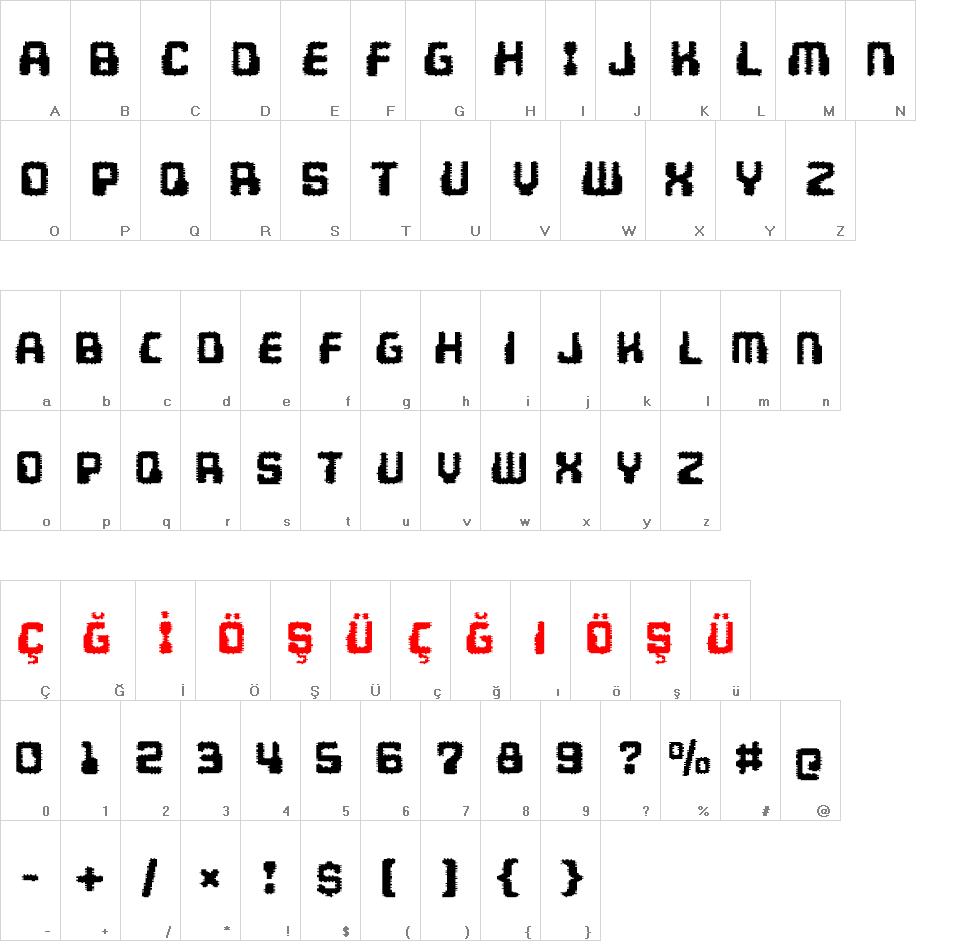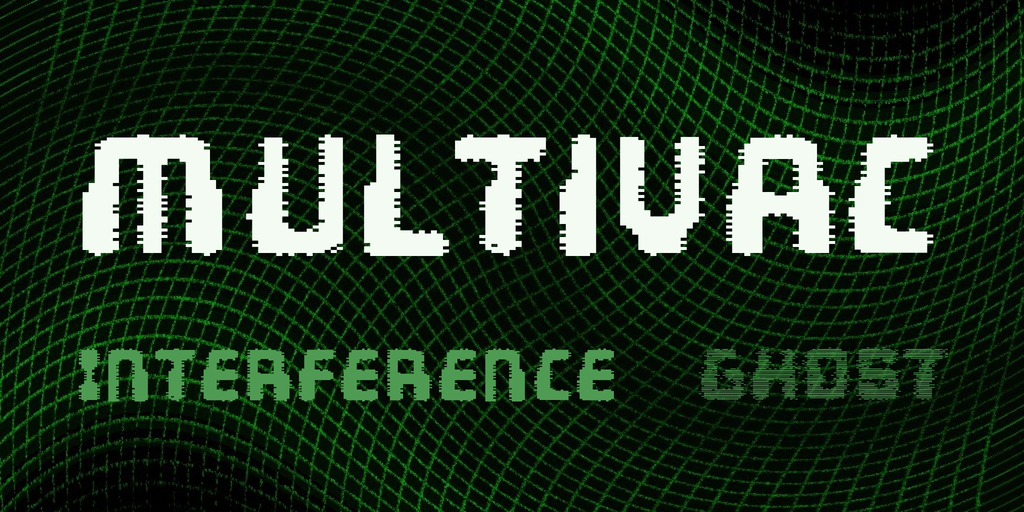
Multivac font
A parallel universe equivalent of Unicephalon  that failed and was sealed into a mountain. It tries to communicate but something is jamming the transmissions...